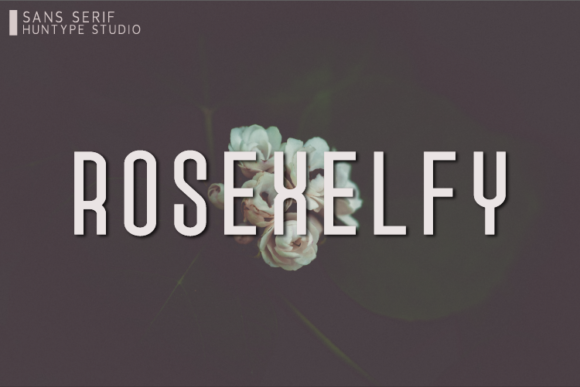
**Discover Rosexelfy: The Font That Elevates Your Aesthetic**
Welcome to the world of Rosexelfy, a captivating sans serif masterpiece that will transform your designs into visual masterpieces. With its crisp, clean lines and delicate curves, Rosexelfy embodies sophistication and elegance, inviting you to create a digital presence that leaves a lasting impression.
Crafted by the renowned font foundry, Huntype, Rosexelfy is not just a font; it's an artistic expression that will elevate your website, logo, and branding to new heights. Its versatile character dances effortlessly between formal and playful, making it the perfect choice for any project that demands both style and substance.
Whether you're a seasoned design professional or a creative enthusiast, Rosexelfy will ignite your imagination and inspire you to create designs that captivate and communicate. Its harmonious curves and precise angles create a visual symphony that will make your website the talk of the town.
Step into the realm of Rosexelfy and experience the power of a typeface that speaks volumes. Its timeless appeal and unwavering quality will ensure that your designs stand the test of time, leaving a legacy of beauty and innovation. Elevate your aesthetic with Rosexelfy today and unlock the boundless potential of creativity.